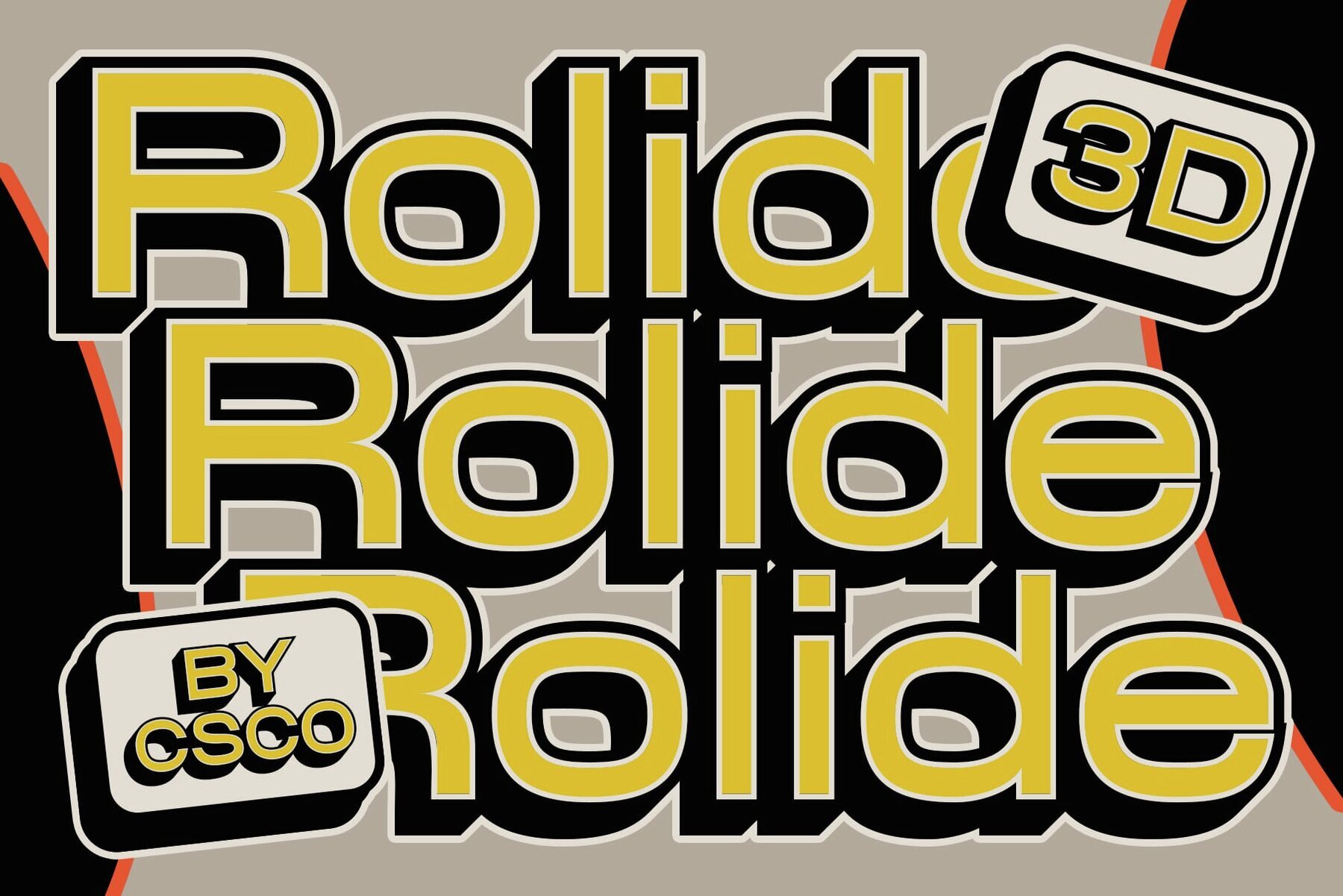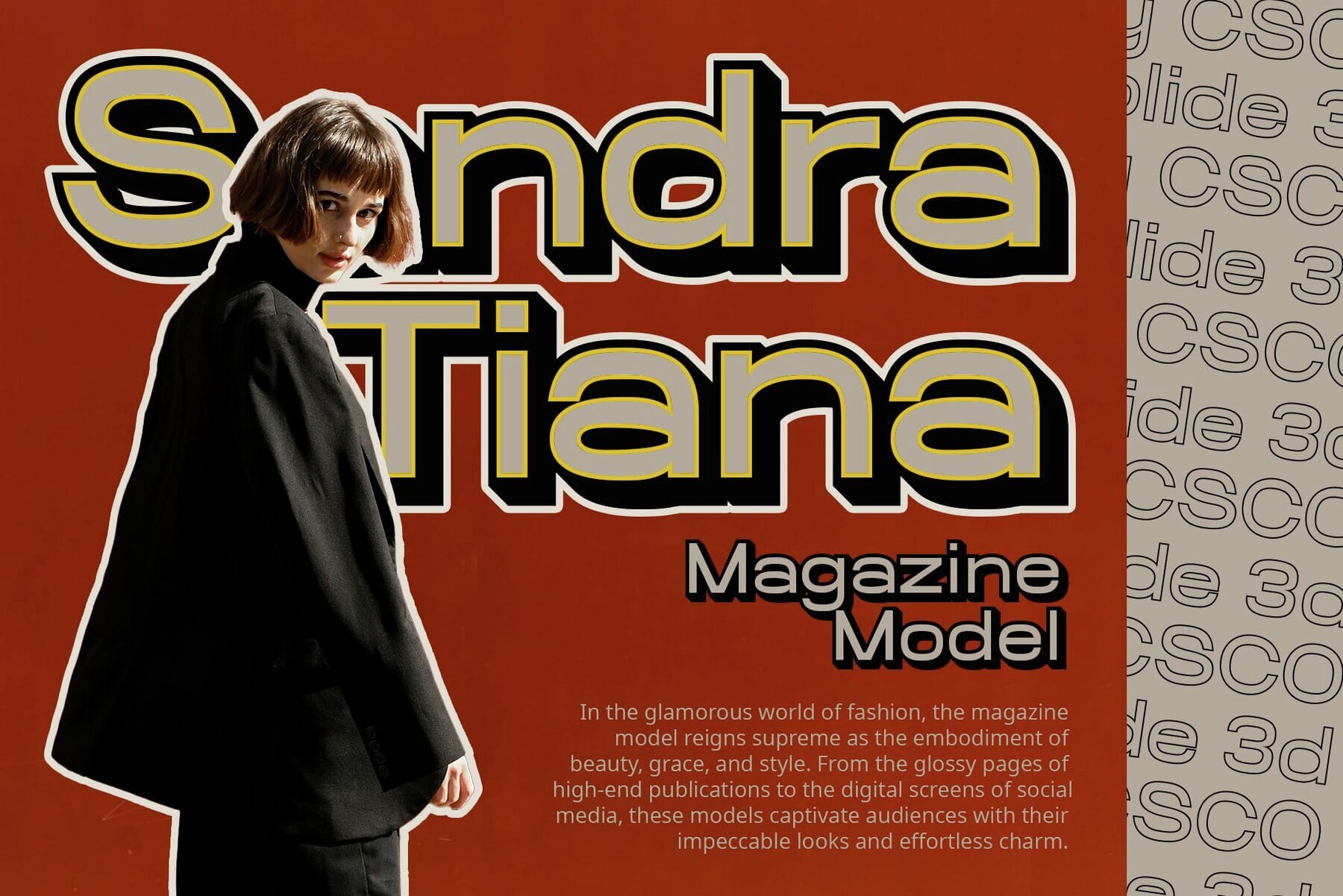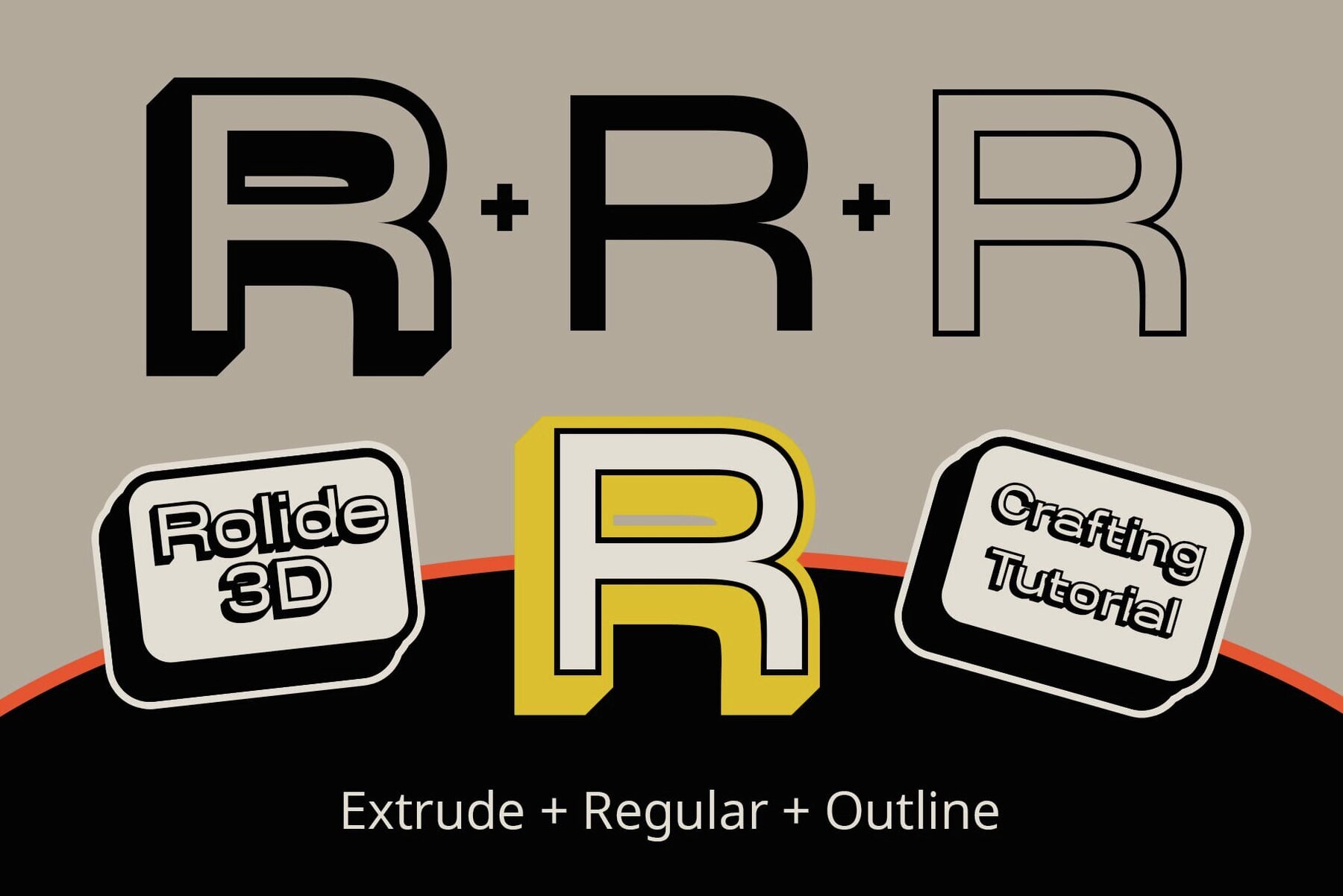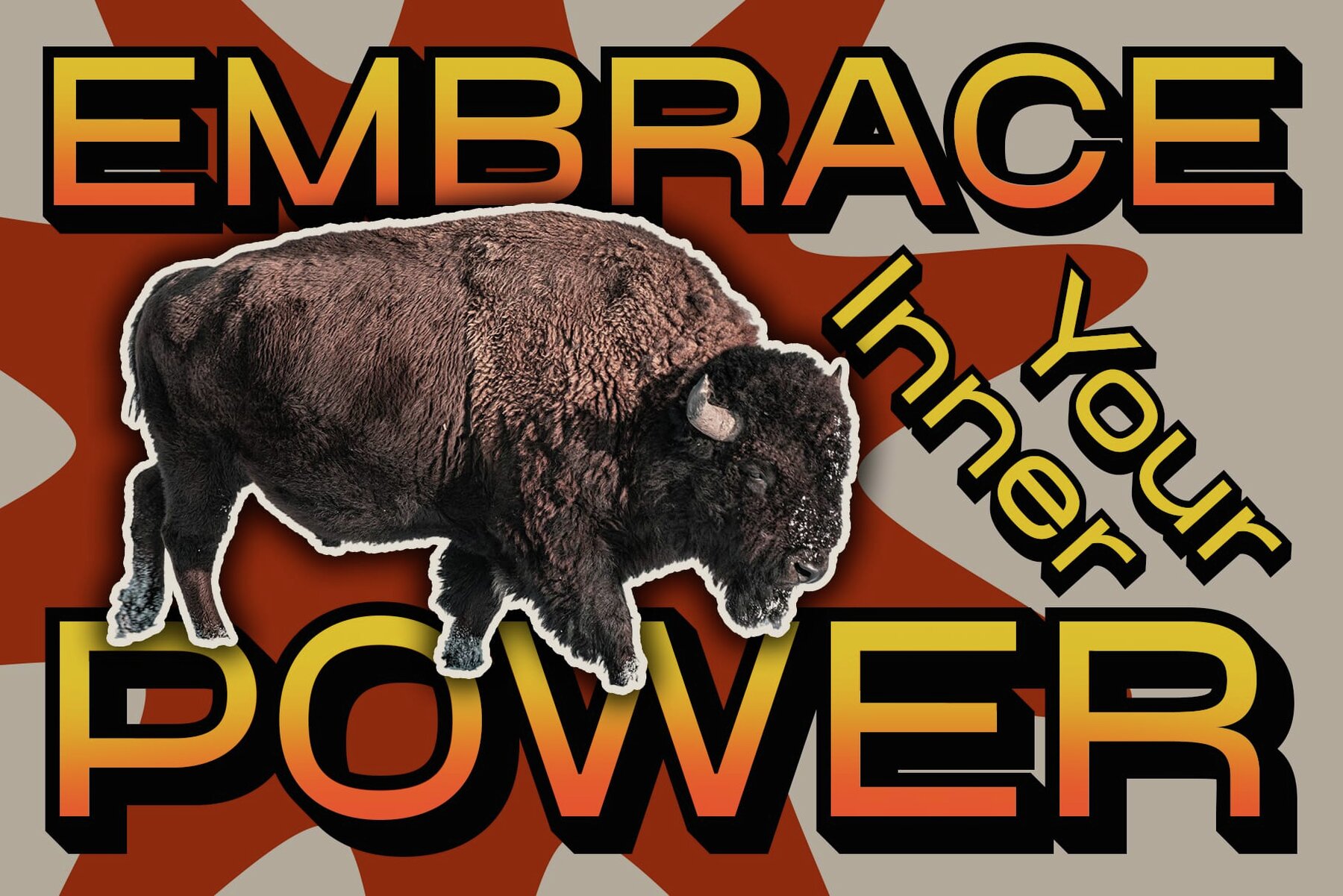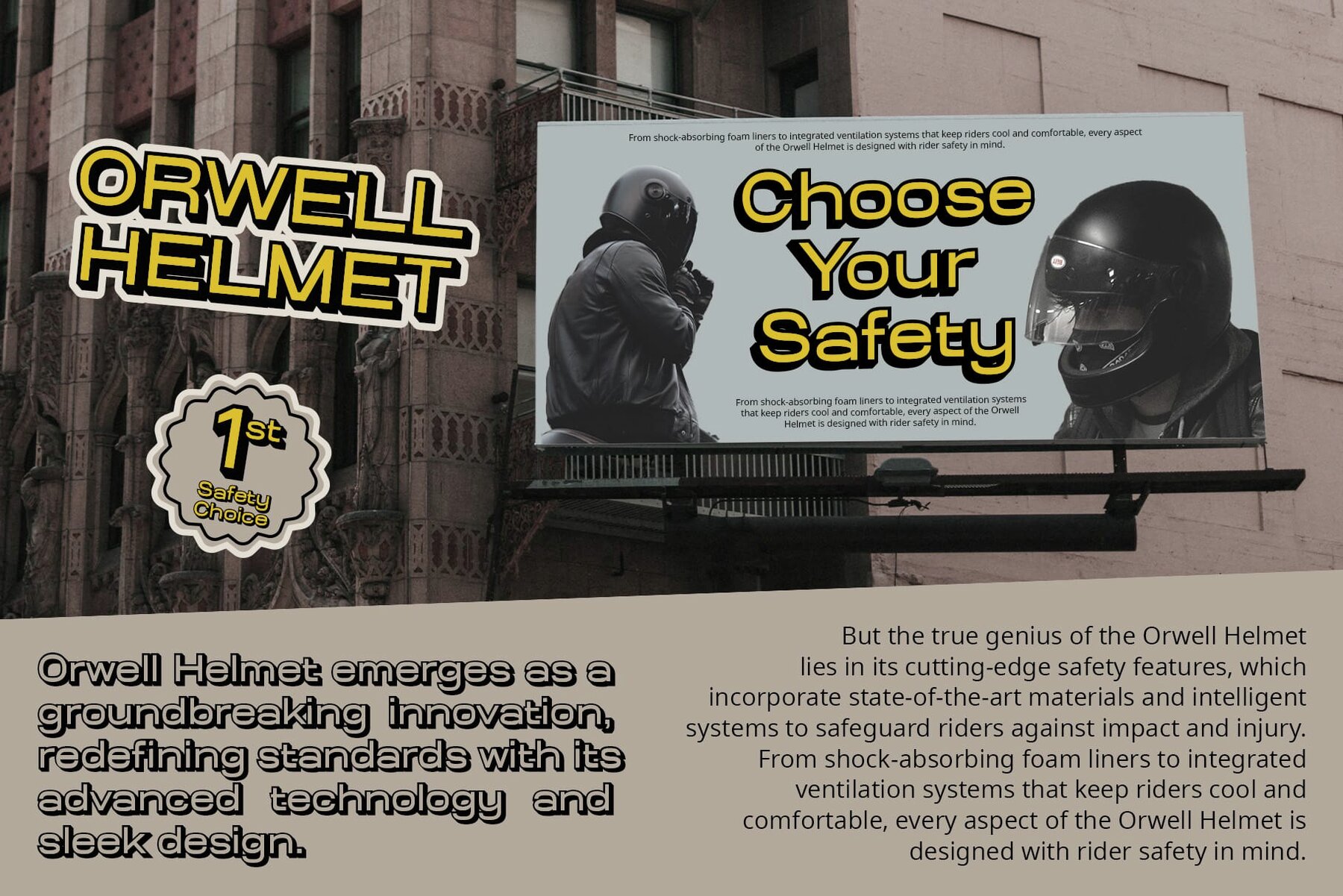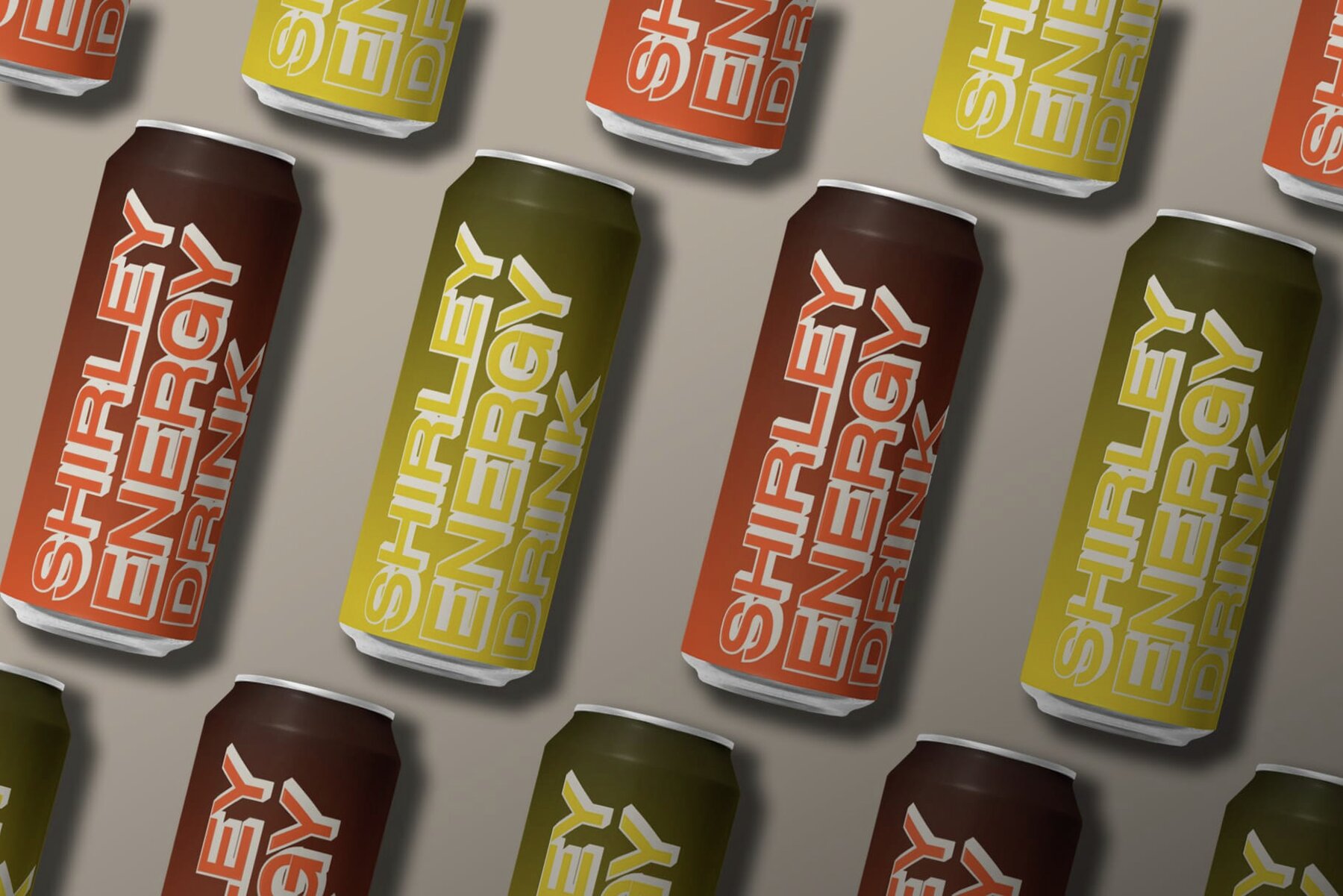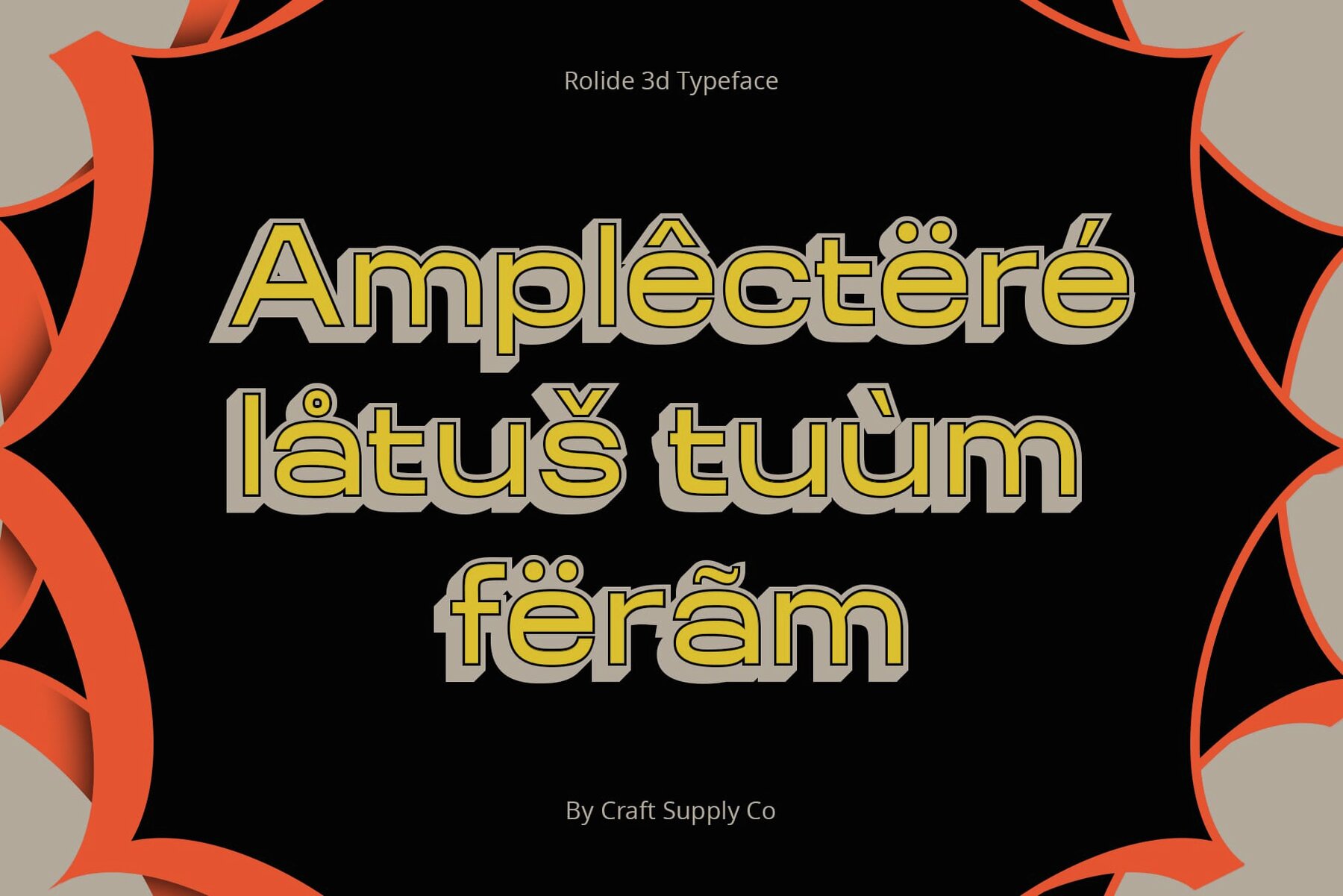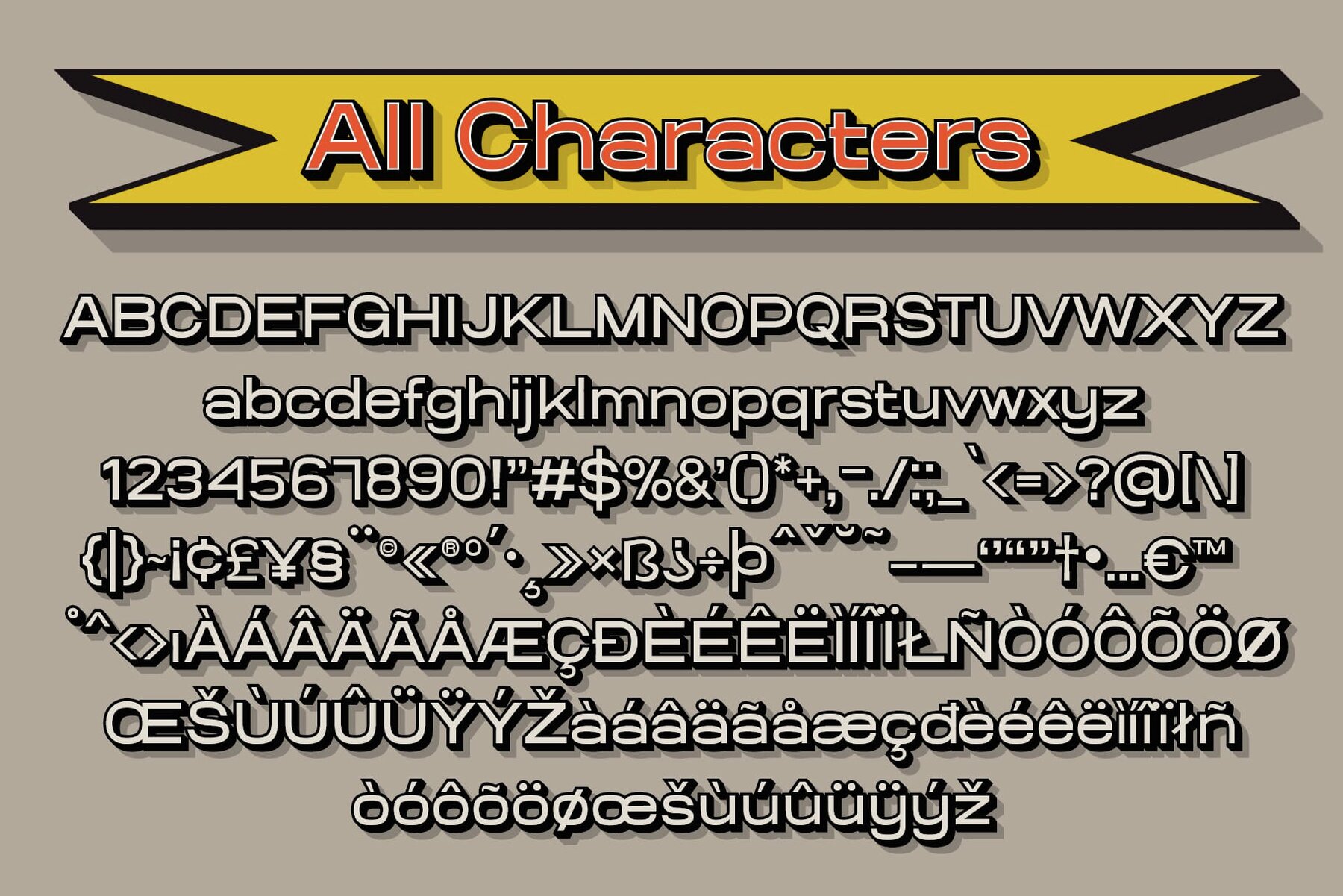
Rolide 3D Font
Rolide 3D is a bold display typeface with a distinctive, boxy sans serif style. Each letter is crafted to convey strength and solidity, ensuring your message stands out. Rolide 3D features a unique style characterized by its wide, boxy appearance. This typeface exudes robust strength with each meticulously crafted letter. The incorporation of outline and extrude effects gives Rolide 3D a three-dimensional quality that adds depth and dynamism, making it ideal for eye-catching displays. Designed primarily for display use, this font excels in spaces where bold statements are necessary. From posters to headlines, its commanding presence ensures maximum impact. Despite its boldness, Rolide 3D provides versatility across design applications. Whether in digital interfaces or printed materials, its striking effects ensure attention-grabbing visuals. You can use this typeface without needing any specialized software. If you have any inquiries or need assistance, please feel free to contact us. We appreciate your support in enhancing your creative projects!Rolide 3D: Bold and Striking Display Typeface
Distinctive Boxed Design
Dynamic Visual Effects
Tailored for Display Purposes
Versatility in Design Applications